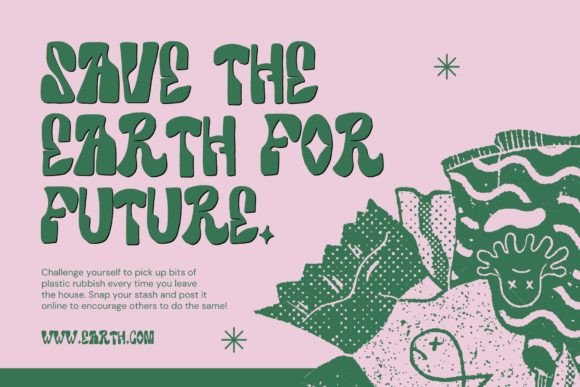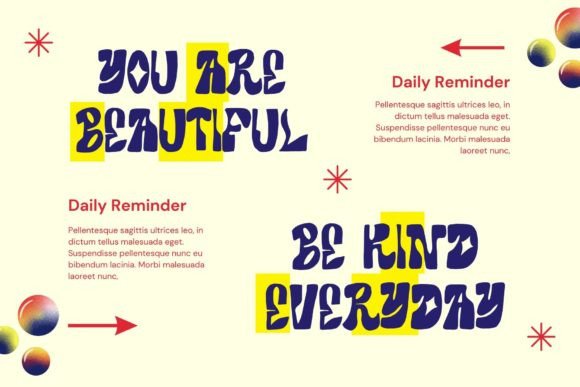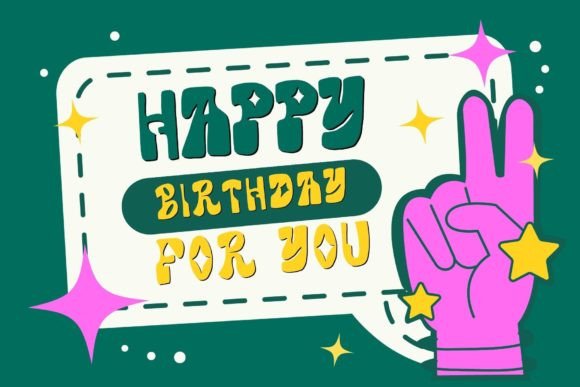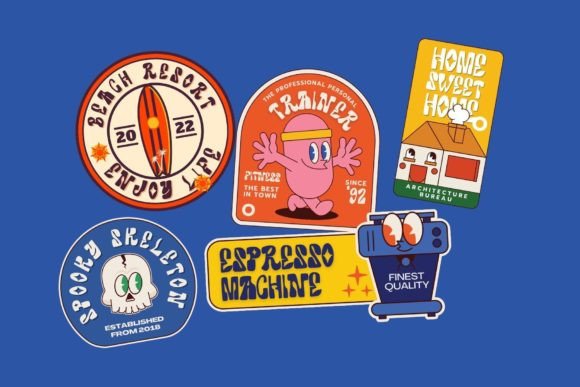
The Retro Charm of Dado Font: A Designer’s Delight
I still remember the design project that led me to discover the Dado font. I was working on a vintage-themed poster for a client’s retro-style diner, and I was struggling to find the perfect font that would capture the essence of the 50s. The client wanted something bold, stylish, and unmistakably retro. After hours of scouring through font libraries, I stumbled upon Dado, and it was love at first sight! ✨
An Honest Review of Dado Font
What I Love About Dado
- ✨ Retro charm: Dado’s bold, chunky letterforms instantly evoke a sense of nostalgia and vintage flair.
- ✅ Versatility: This font is perfect for a wide range of design projects, from posters and logos to packaging and branding.
- 💥 Impactful: Dado’s bulky proportions make it perfect for headlines, titles, and any text that needs to grab attention.
While Dado is an amazing font, it’s not without its quirks. Here are a few things to keep in mind:
- 🤔 Legibility at small sizes: Due to its chunky proportions, Dado can become a bit illegible at very small font sizes.
- ⚠️ Overuse: As with any bold font, it’s easy to overuse Dado. Make sure to balance it with other fonts and design elements.
A Practical Guide to Using Dado Font
One of the best things about Dado is its OpenType features and glyphs. With Dado, you can access a range of stylistic alternates, swashes, and ligatures to add more personality to your text. To access these features, you’ll need to use a design platform that supports OpenType, such as Adobe Photoshop or Illustrator.
The Backstory of Dado Font
Dado was designed by a team of creatives who wanted to create a font that would capture the essence of retro design. Inspired by vintage posters, logos, and advertisements, Dado is the perfect blend of bold, stylish, and nostalgic. The designers behind Dado aimed to create a font that would be both versatile and attention-grabbing, perfect for a wide range of design projects.
Q: What is the best use for Dado font?
A: Dado is perfect for designs that need a touch of vintage flair, such as posters, logos, packaging, and branding.
Q: Is Dado font suitable for body text?
A: While Dado is a beautiful font, it’s not ideal for body text due to its chunky proportions. It’s best used for headlines, titles, and short paragraphs.